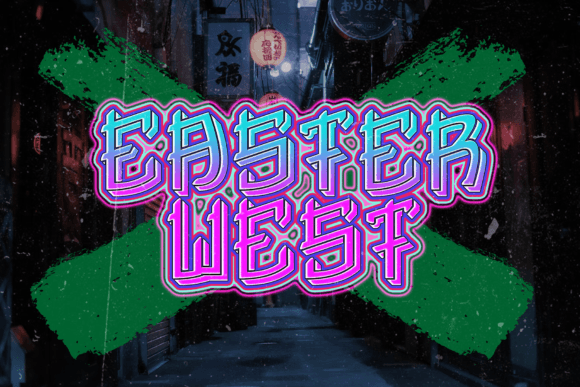
Embark on an artistic odyssey with "Easter West" - a captivating display font that exudes a symphony of straight and sharp character strokes. Immerse yourself in the beauty of pristine typography as this font family dances across your screen, leaving a trail of elegance and refinement.
With its clean and modern aesthetic, "Easter West" is a visual masterpiece crafted to turn heads and leave a lasting impression. Its bold and confident stance makes it the perfect choice for those seeking a font that commands attention and speaks volumes without uttering a single word.
Whether you're a seasoned designer or just starting your creative journey, "Easter West" is your passport to a world of limitless possibilities. Unleash your imagination and watch as your designs blossom into vibrant expressions of your artistry.
From captivating logos that demand attention to eye-catching headlines that ignite curiosity, "Easter West" is your secret weapon for creating designs that resonate with your audience. Its versatility knows no bounds, effortlessly adapting to posters, flyers, social media graphics, and any other canvas your creativity desires.
Elevate your designs to new heights with "Easter West" - the font that transforms your vision into tangible works of art. Bold, beautiful, and utterly captivating, this font family will redefine your creative boundaries and leave you craving for more.
So, why settle for ordinary when you can embrace the extraordinary? Embark on a typographic adventure with "Easter West" today and discover a world where fonts dance, emotions ignite, and designs come alive.